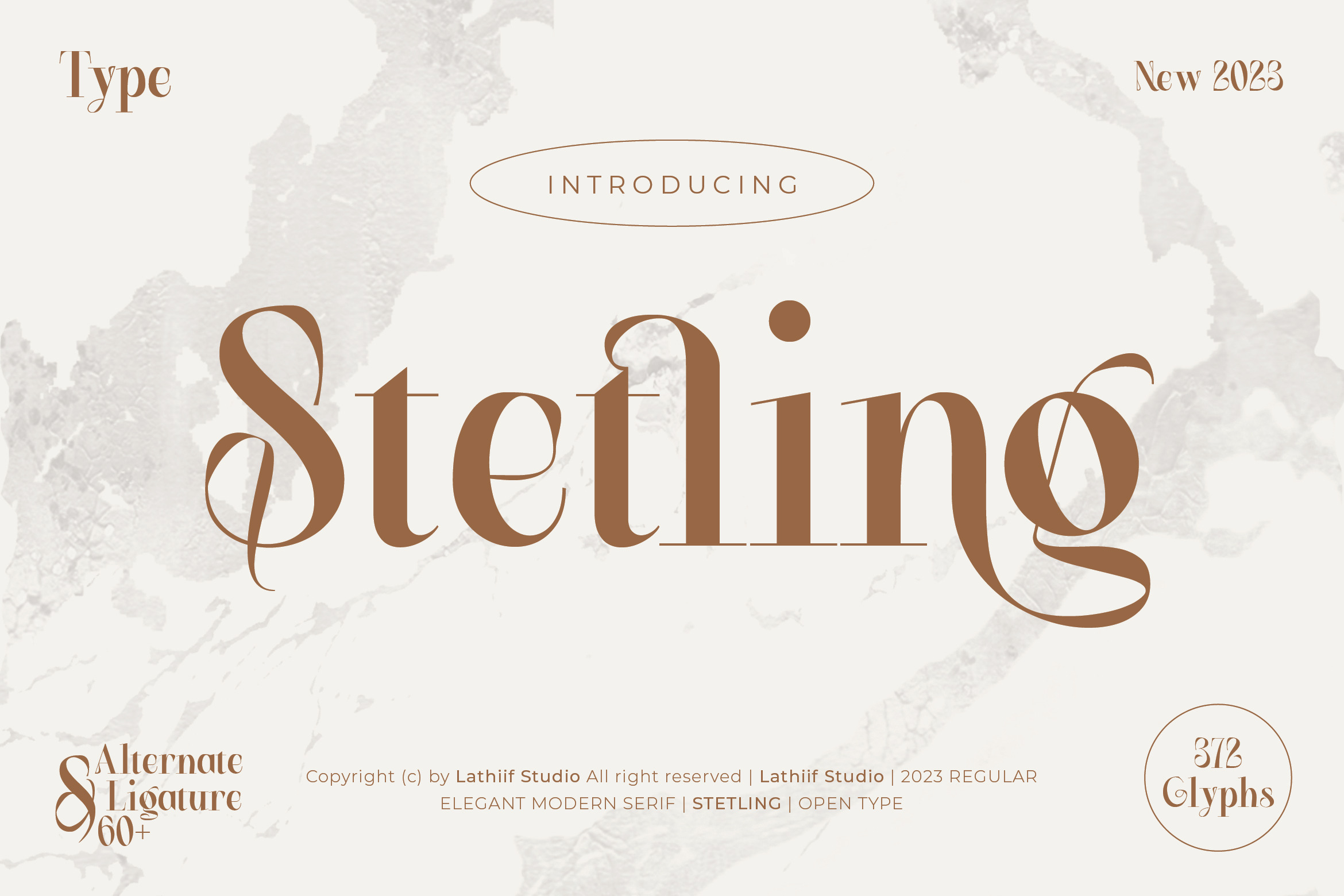
Stetling - Elegant Modern Serif Font
Stetling - Elegant Modern Serif Font is the epitome of grace and beauty, with its delicate curves and refined details adding an air of elegance to any design project.
- Tons of glyphs
- Alternates and Ligatures
- Punctional
- Fonts include Multilingual Support